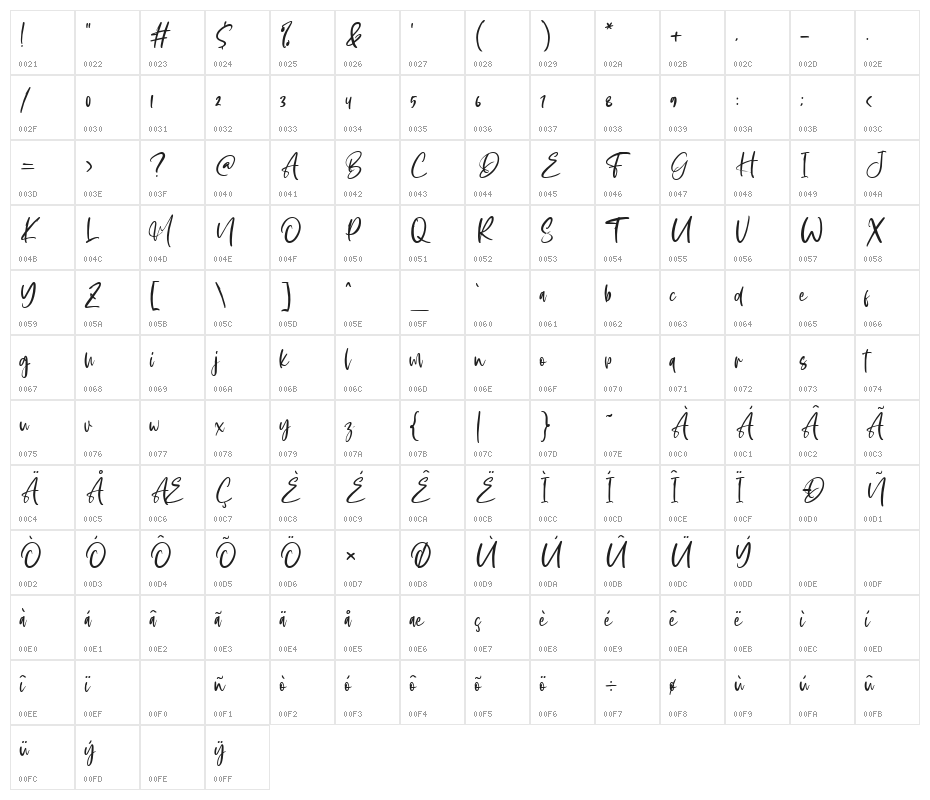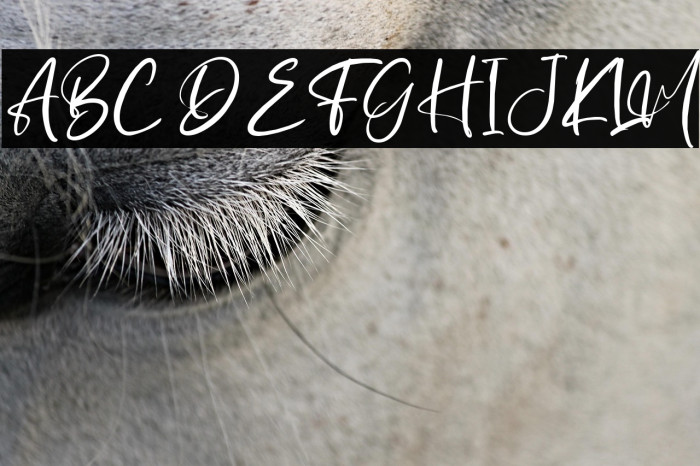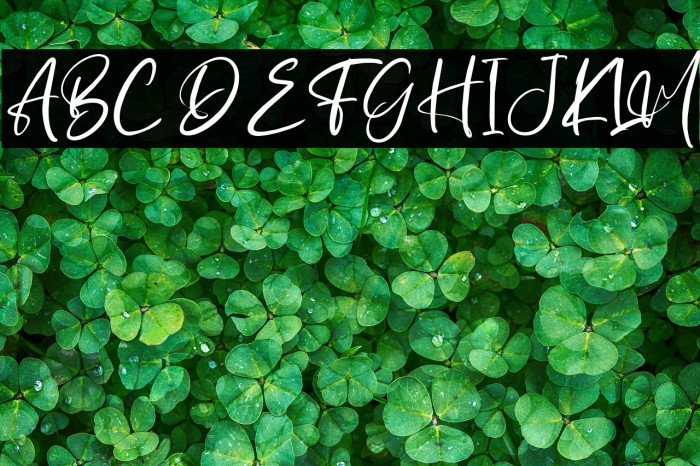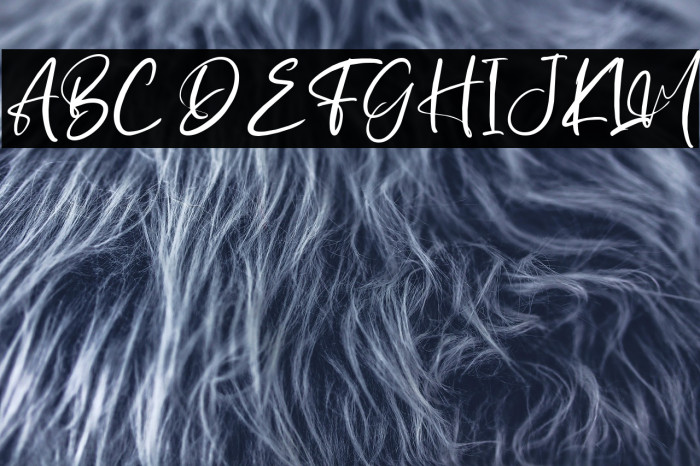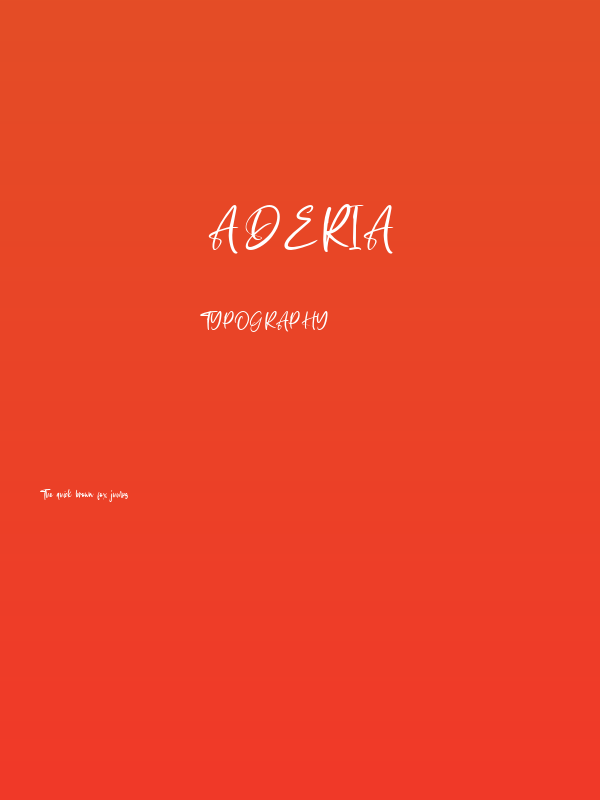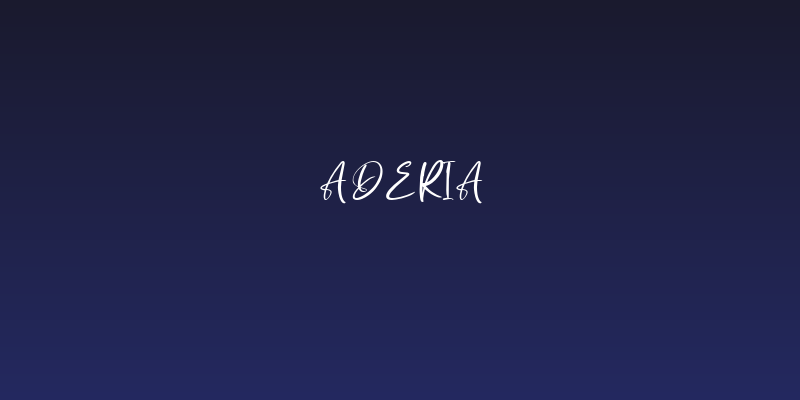
Aderia Font
Aderia Description
This font features an elegant, flowing script style that exudes a sense of modern sophistication and casual elegance. The letters are crafted with smooth, fluid strokes that mimic the natural motion of handwriting, giving it a personal and approachable feel. The uppercase letters are bold and expressive, while the lowercase letters maintain a consistent rhythm and flow. The numerals and special characters are designed to complement the overall style, ensuring versatility across various applications. The font's playful yet refined appearance makes it suitable for a wide range of creative projects.
| Use Case | Logos, Invitations, Social Media |
| Proposed Projects | Ideal for wedding invitations, branding, social media graphics, and personal stationery. |